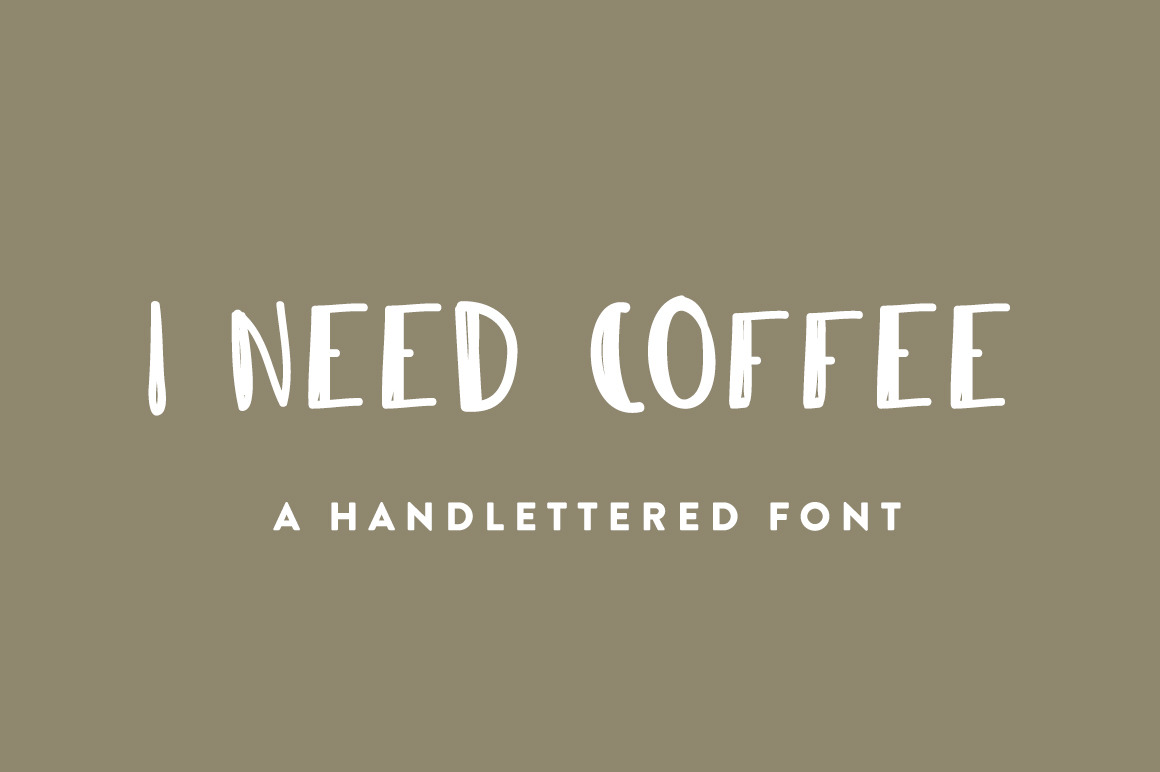
I Need Coffee Font
An all uppercase font with numbers and a few pieces of punctuation. This would be a great font to use to create graphics for social media campaigns or on an image for blog posts. The font has a rough and hand created feeling that speaks to adventure and is very laid back. Not meant to be much more than a casual font.
Letters and Glyphs Included are: A-Z and #0- 9 and ,.?!